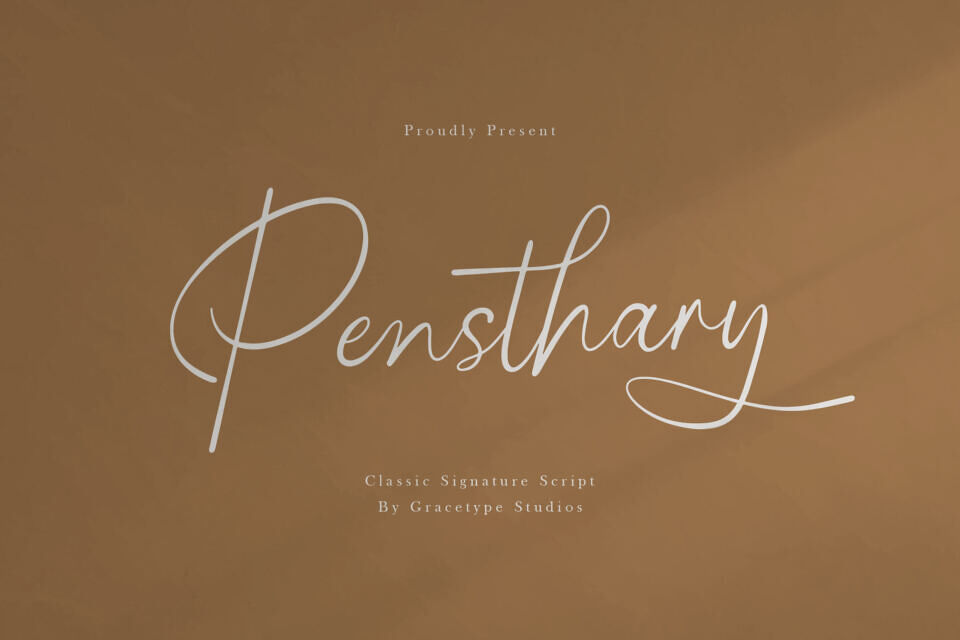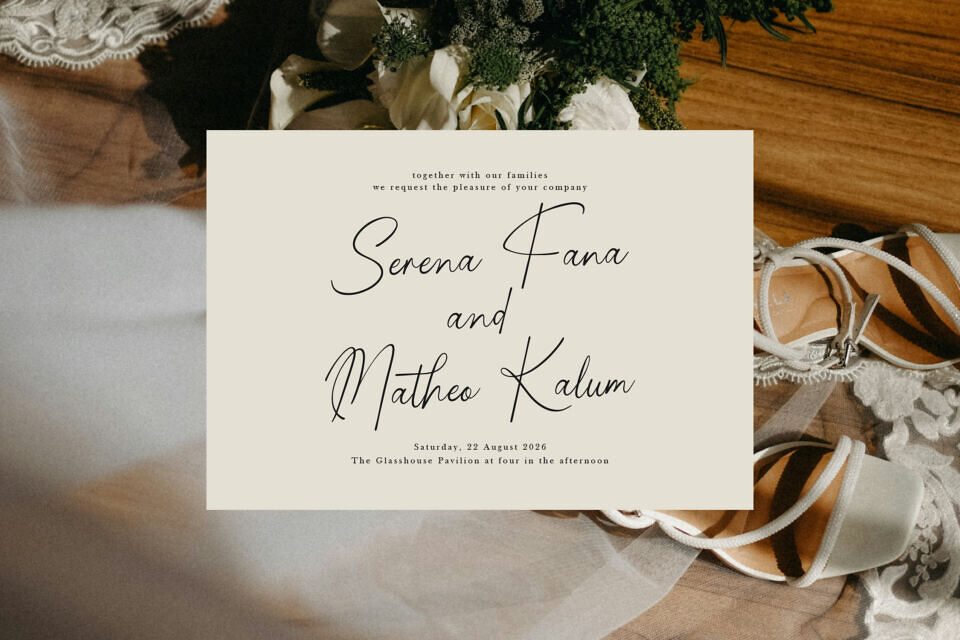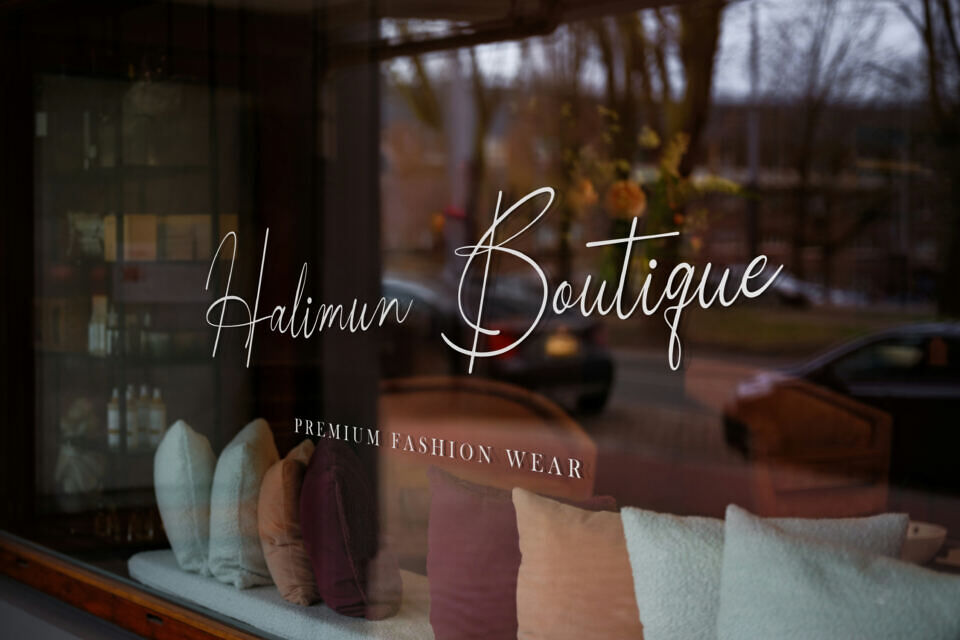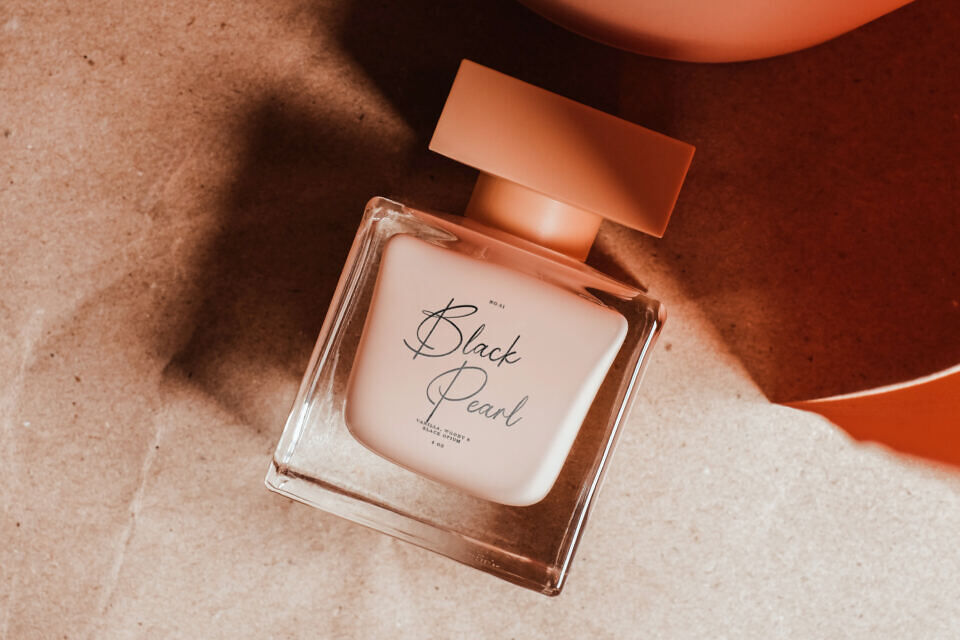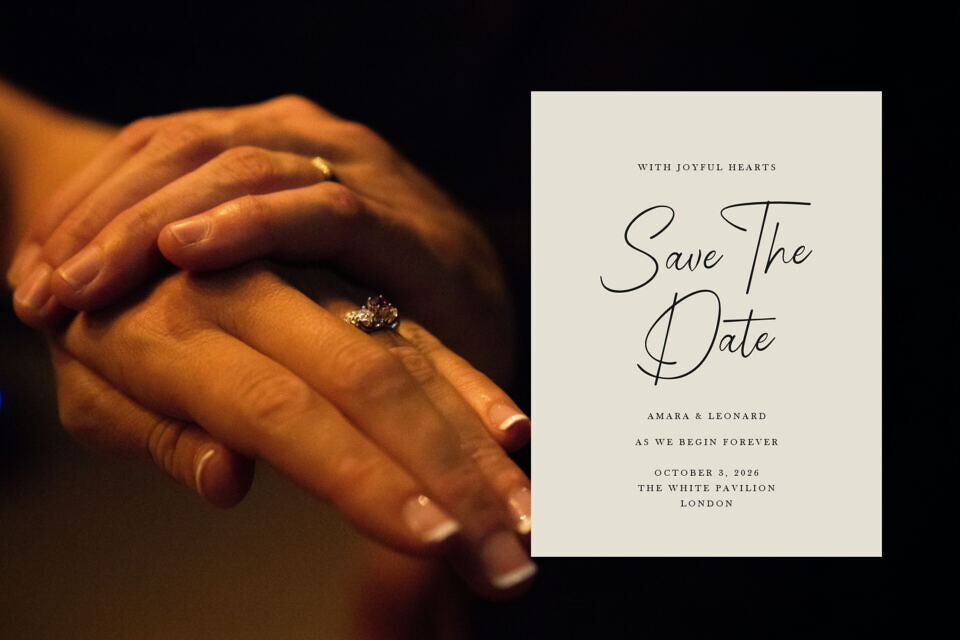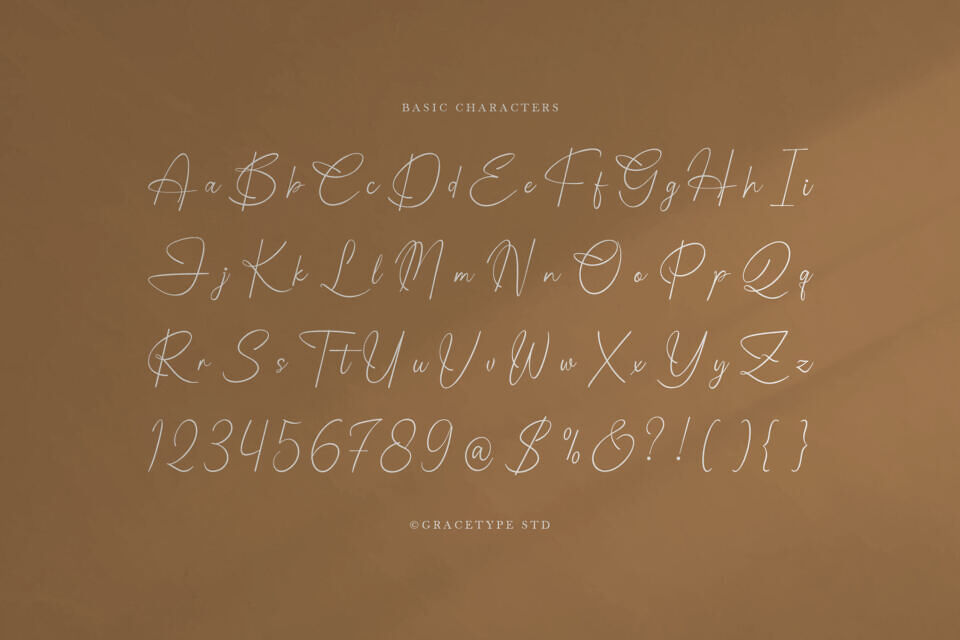
Pensthary Font
Pensthary is a sophisticated classic signature script designed by Gracetype Studios. Its airy and refined aesthetic makes it the perfect choice for luxury logos, wedding stationery, professional watermarks, and editorial photography overlays.
When your design requires a personal, human touch with an upscale “boutique” feel, Pensthary provides the effortless elegance you need.